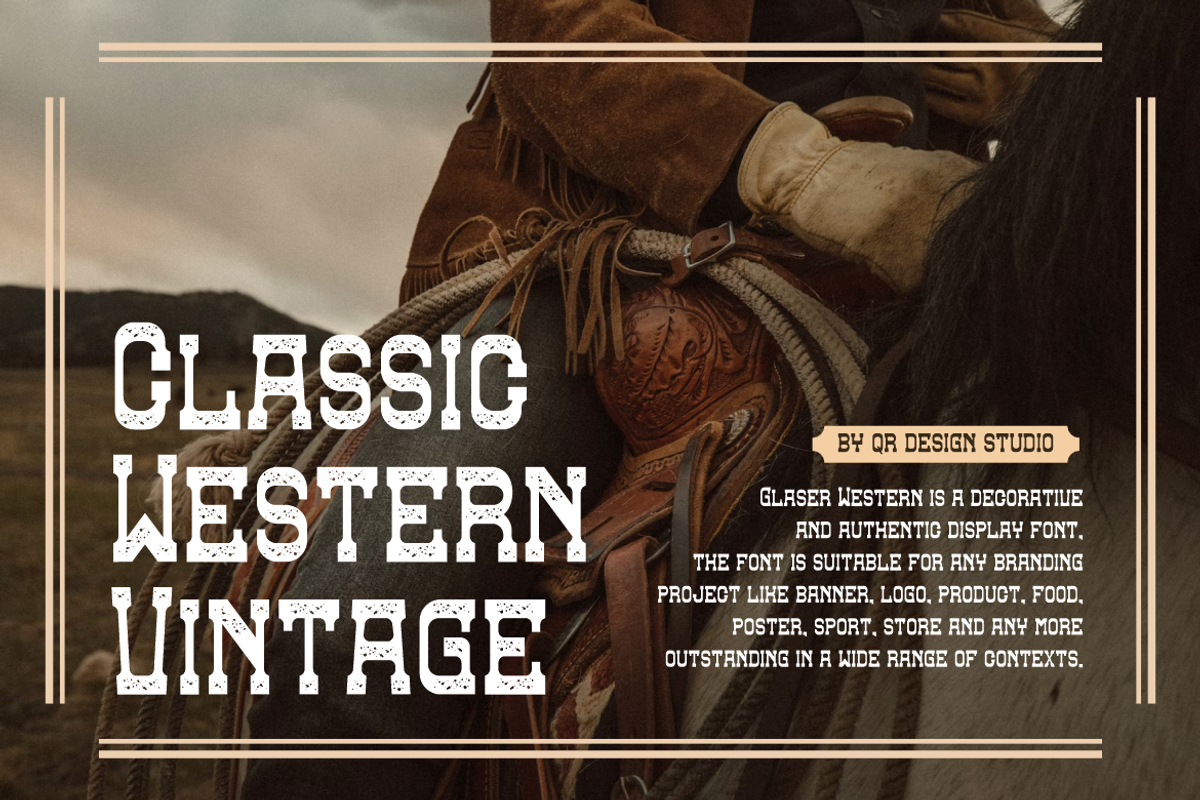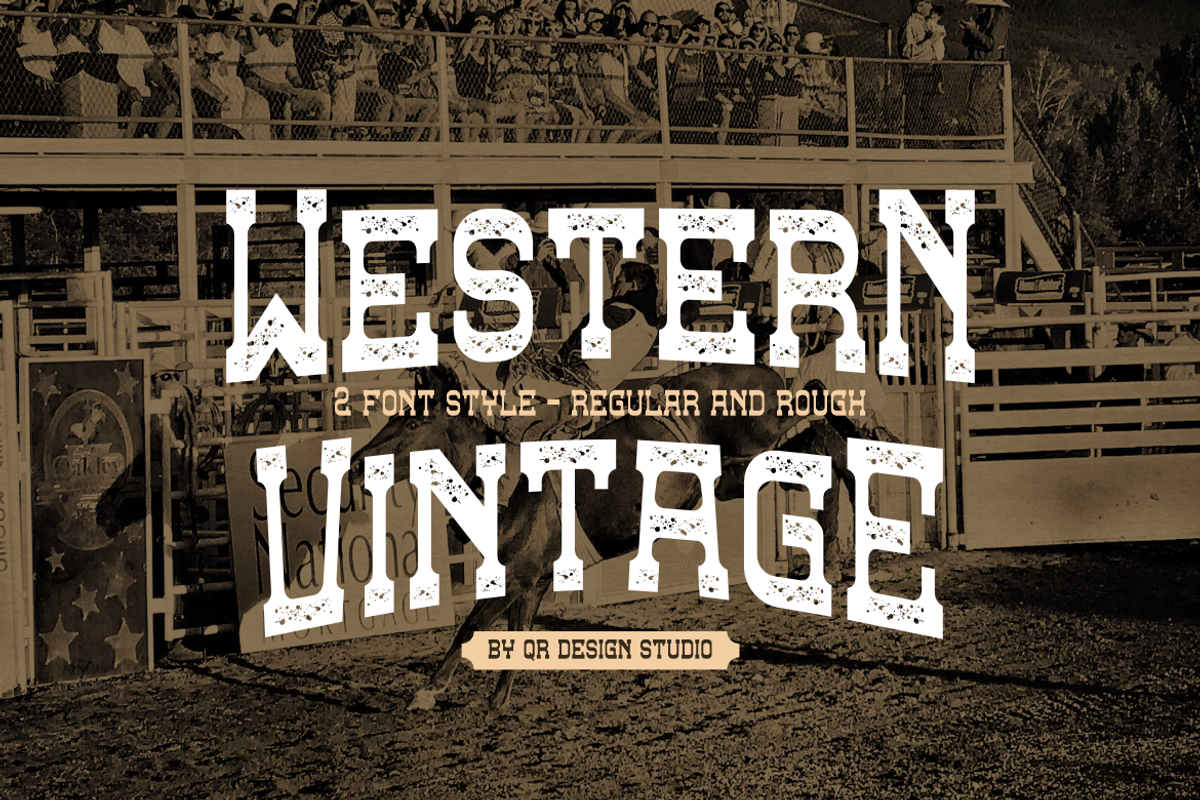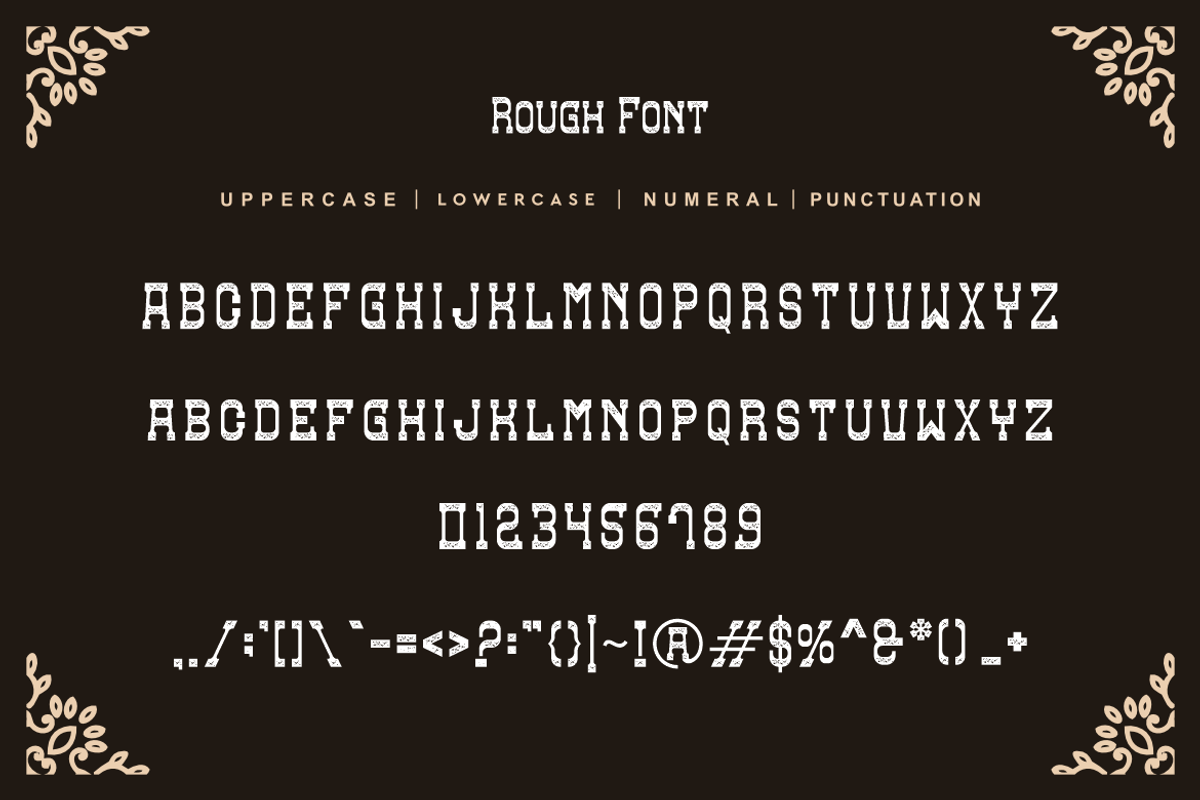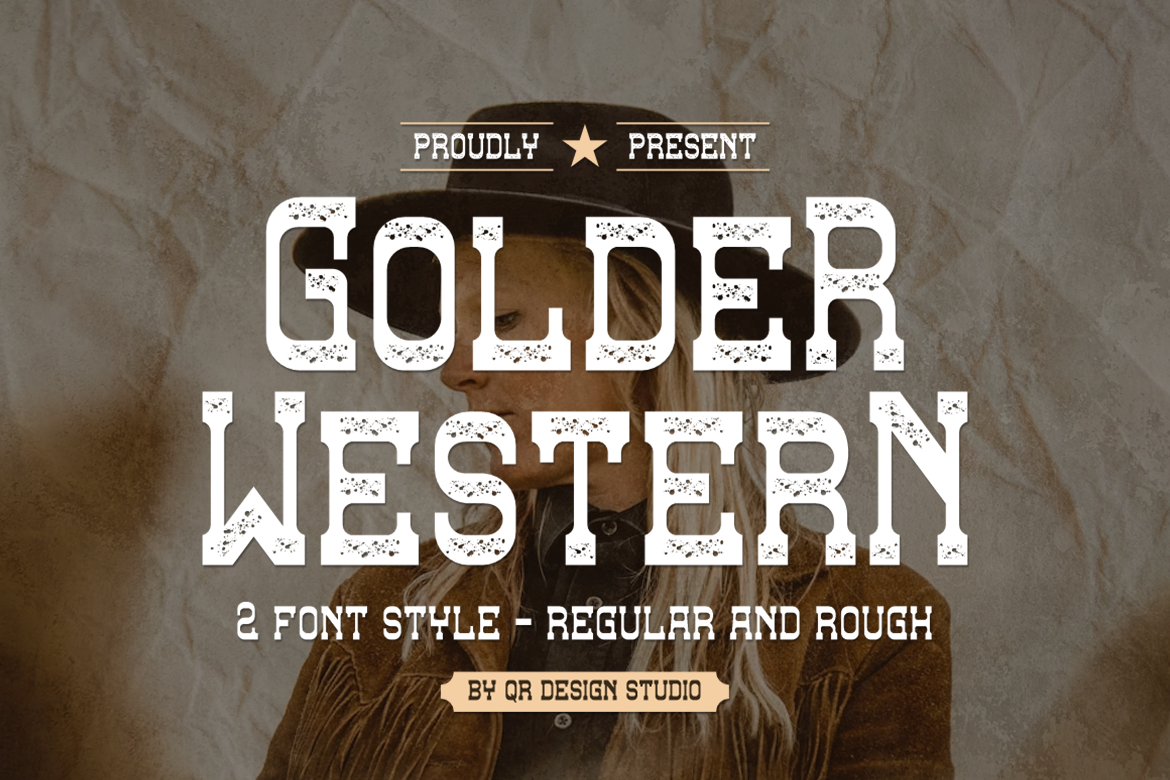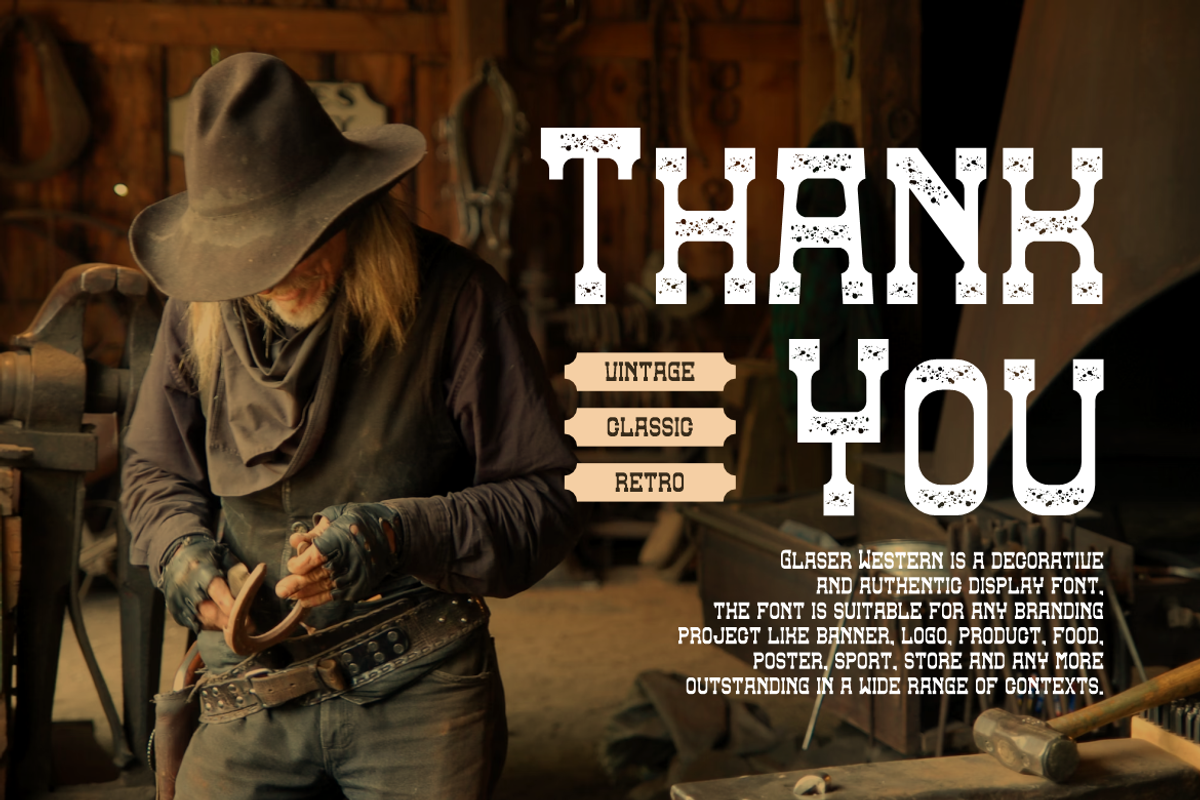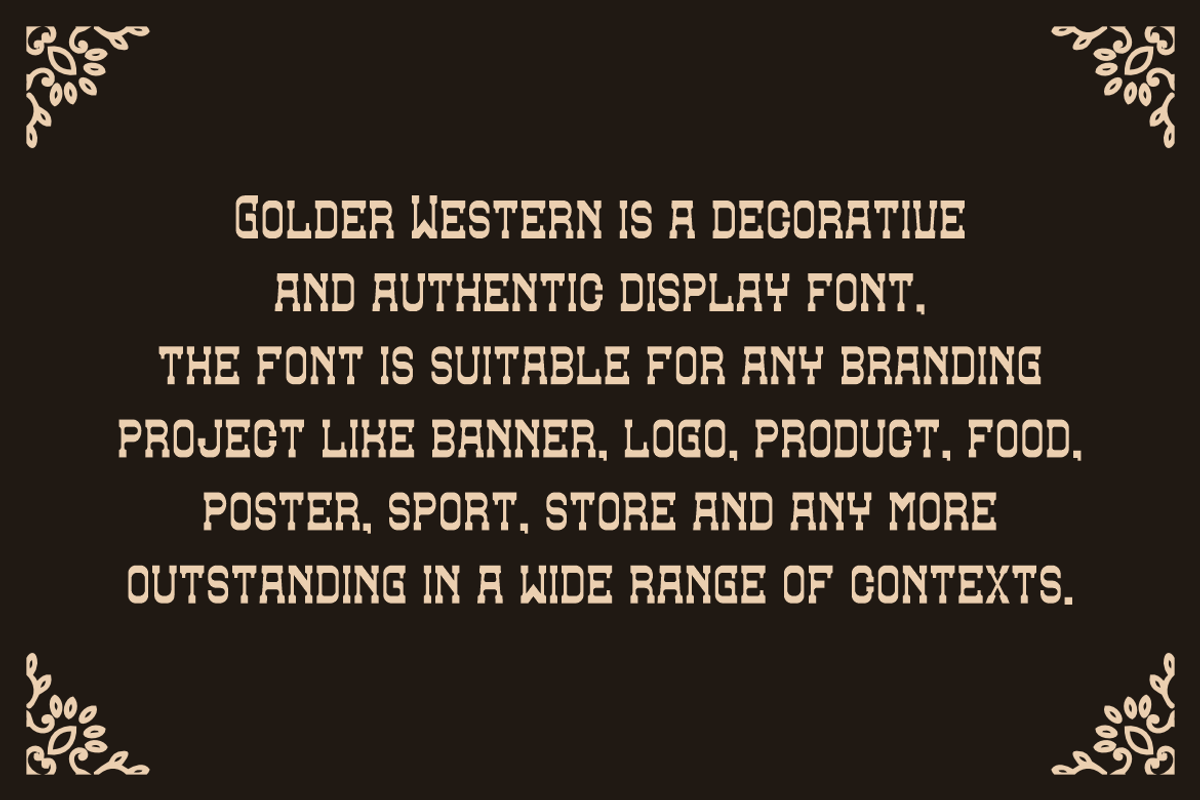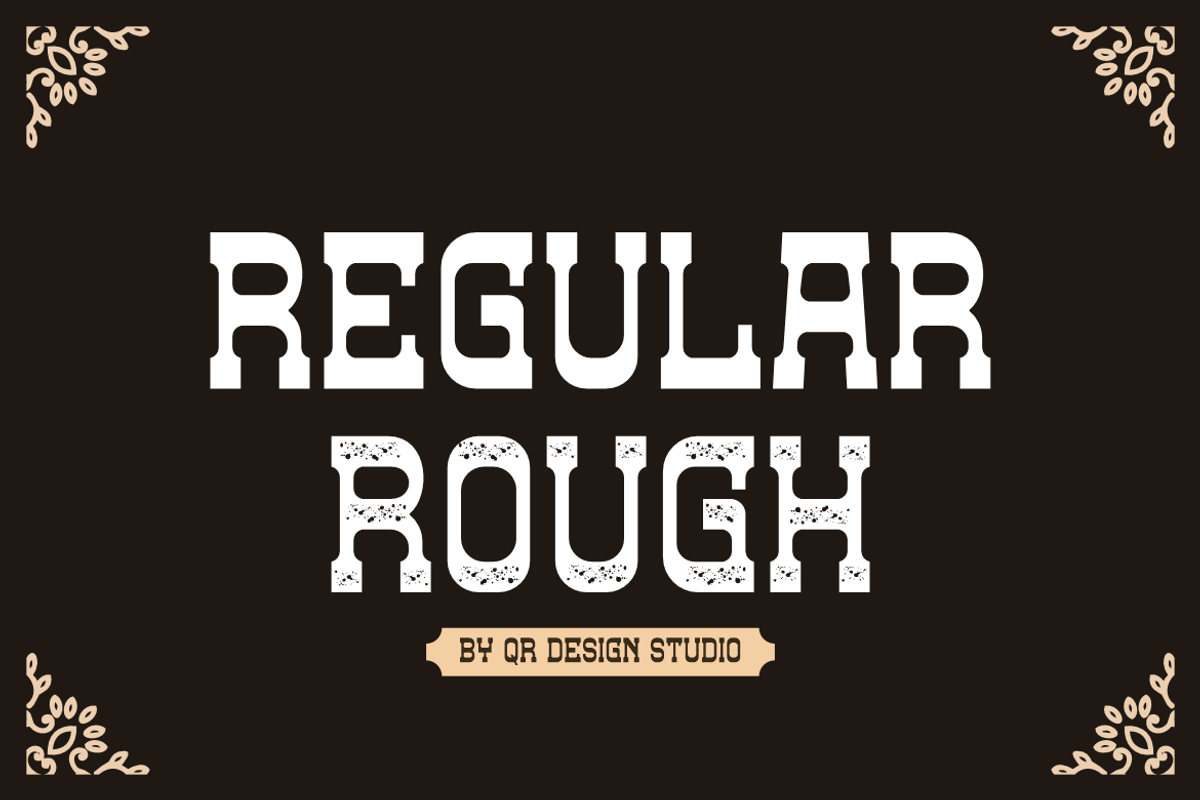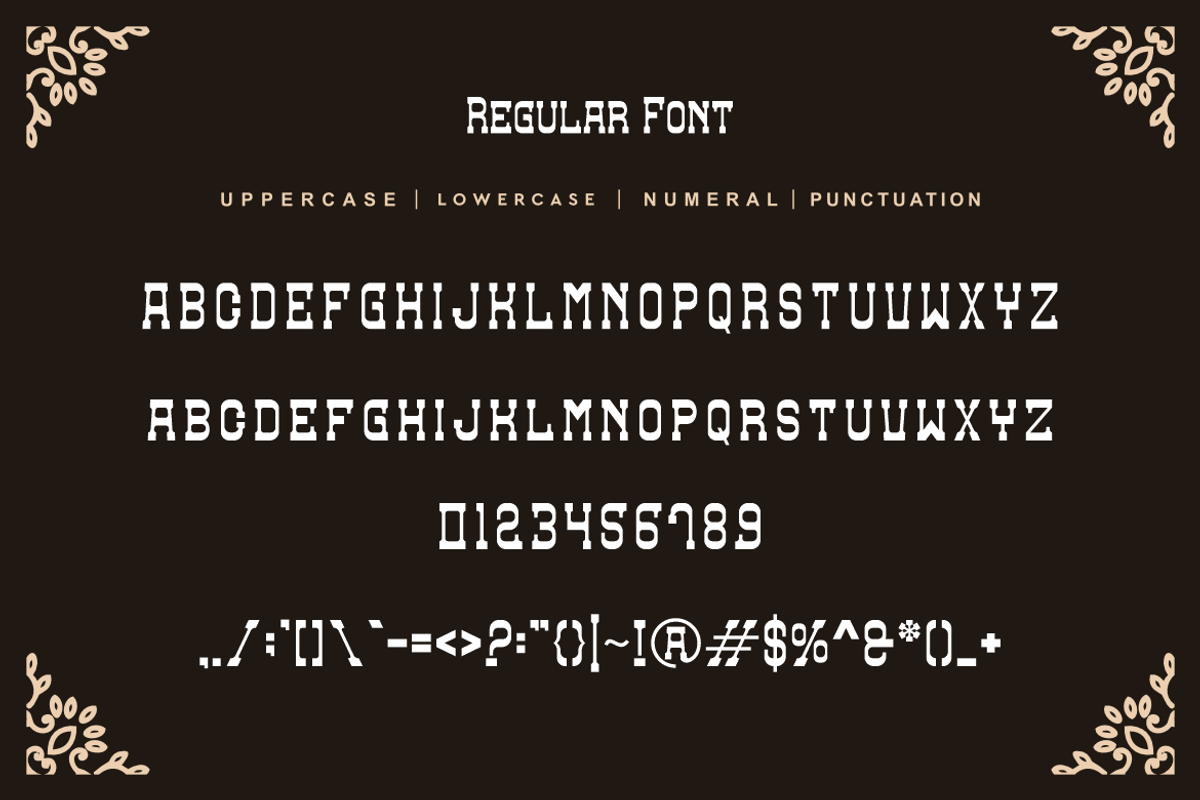
Golder Western - Typeface Font
Golder Western - Typeface Font is a serif and authentic display font. The font is suitable for any branding project like poster, logo, sport, and many more. Outstanding in a wide range of contexts.
Rough